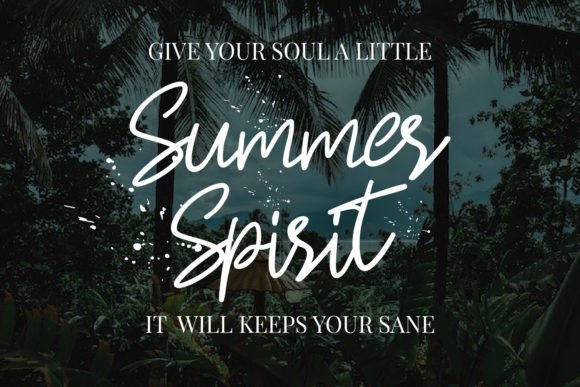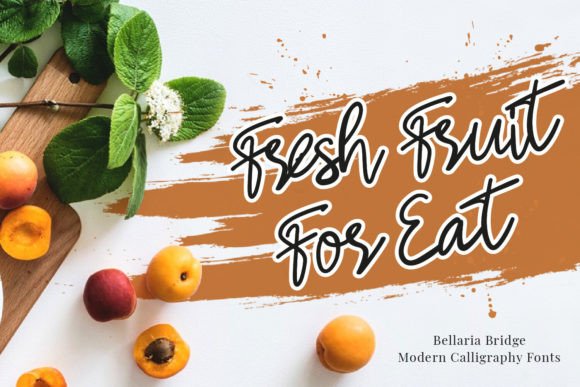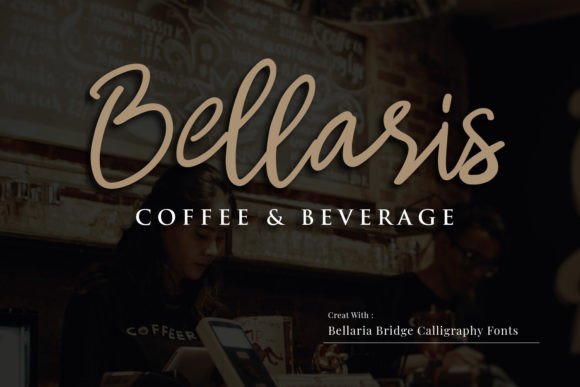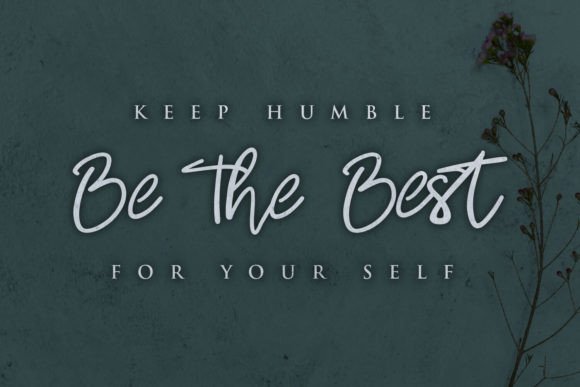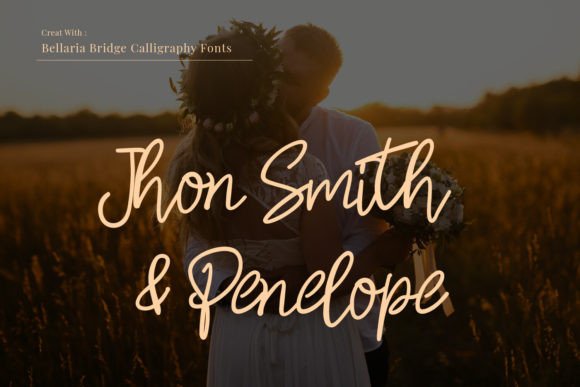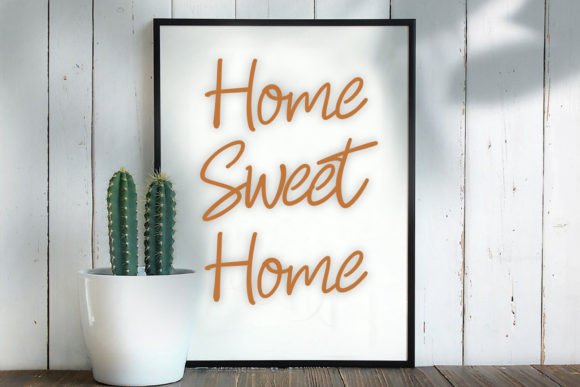
Bellaria Bridge Font: Elevate Your Designs with Elegant Handwritten Script
Are you looking for a font that adds a touch of elegance and sophistication to your designs? Look no further than the Bellaria Bridge Font, a beautiful handwritten script font perfect for a wide range of projects. In this article, we’ll explore the features and benefits of Bellaria Bridge, and show you how it can take your designs to the next level.
What is Bellaria Bridge Font?
Bellaria Bridge is a handwritten script font designed to bring a personal and creative touch to your designs. Its elegant and flowing lines make it perfect for projects that require a high level of sophistication and style. Whether you’re working on branding, promotional ads, quotes, merchandise, or social media graphics, Bellaria Bridge is the perfect choice.
Key Features of Bellaria Bridge Font
• Handwritten Script Style: Bellaria Bridge has a unique handwritten script style that adds a personal touch to your designs.
• Elegant and Flowing Lines: The font features elegant and flowing lines that make it perfect for projects that require a high level of sophistication.
• Versatile: Bellaria Bridge is suitable for a wide range of projects, including branding, promotional ads, quotes, merchandise, and social media graphics.
• Easy to Read: The font is easy to read, making it perfect for body text and headlines.
Benefits of Using Bellaria Bridge Font
Using Bellaria Bridge Font in your designs offers a range of benefits, including:
• Unique and Creative: Bellaria Bridge adds a unique and creative touch to your designs, setting them apart from the competition.
• Elegant and Sophisticated: The font’s elegant and sophisticated style makes it perfect for high-end brands and luxury products.
Design Ideas Using Bellaria Bridge Font
Bellaria Bridge is a versatile font that can be used in a wide range of design projects. Here are some ideas to get you started:
• Branding: Use Bellaria Bridge to create elegant and sophisticated brand logos and marketing materials.
• Promotional Ads: Add a touch of elegance to your promotional ads with Bellaria Bridge.
• Quotes and Typography: Use Bellaria Bridge to create beautiful quote designs and typography graphics.
• Merchandise: Add a personal touch to your merchandise with Bellaria Bridge.
• Social Media Graphics: Use Bellaria Bridge to create stunning social media graphics that stand out from the crowd.
In conclusion, Bellaria Bridge Font is a beautiful handwritten script font that can elevate your designs to the next level. Its elegant and flowing lines make it perfect for a wide range of projects, from branding and promotional ads to quotes and social media graphics. With its versatility, ease of use, and cost-effectiveness, Bellaria Bridge is a must-have font for designers and businesses looking to add a touch of elegance and sophistication to their designs.